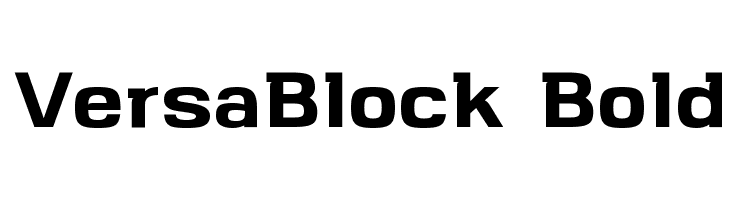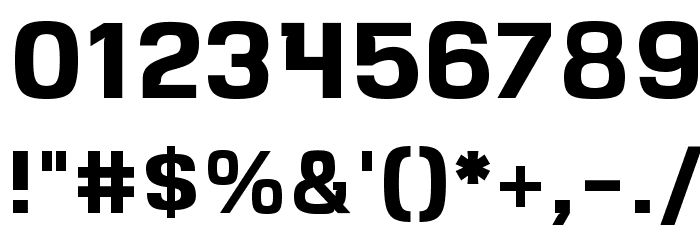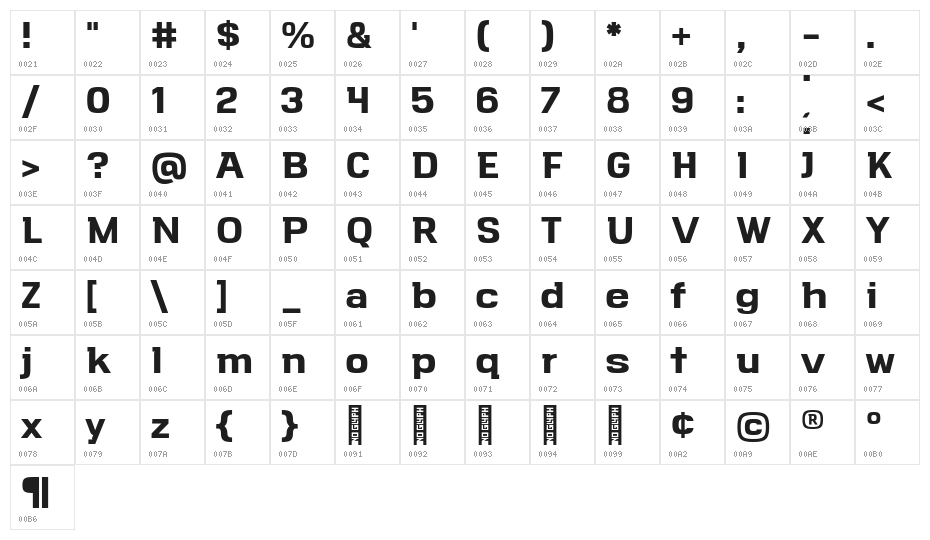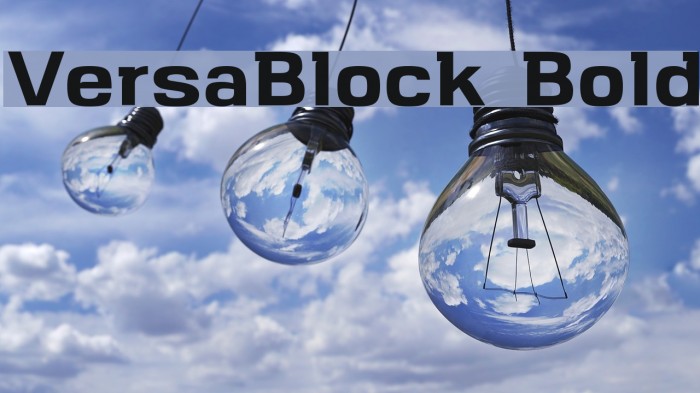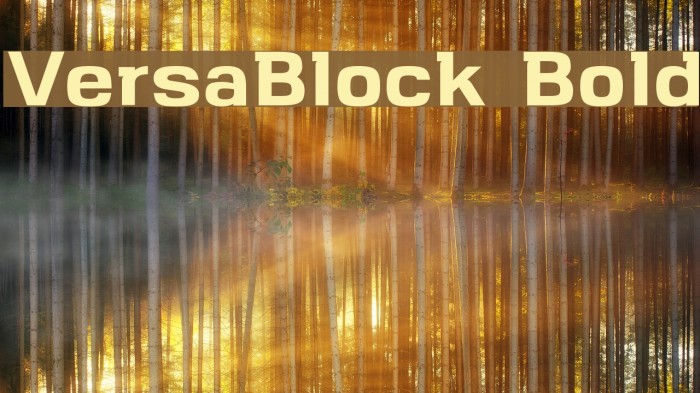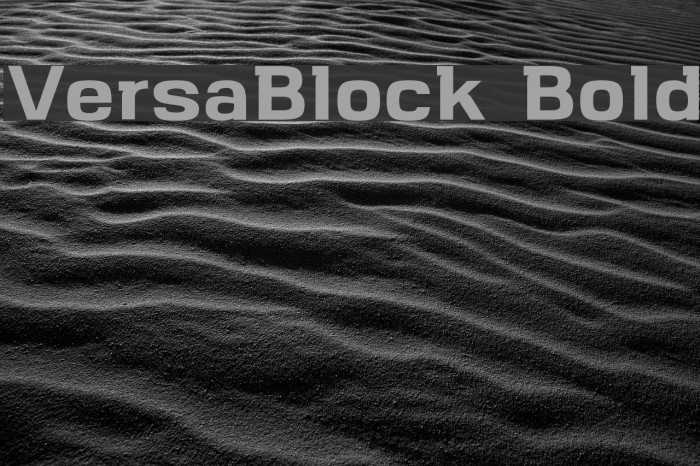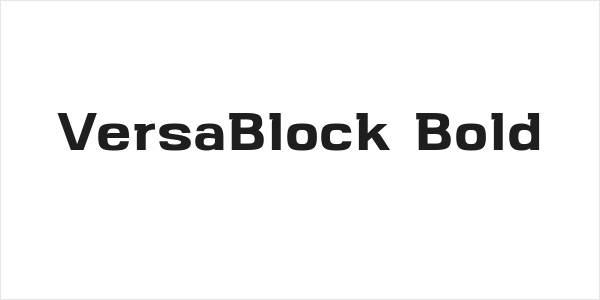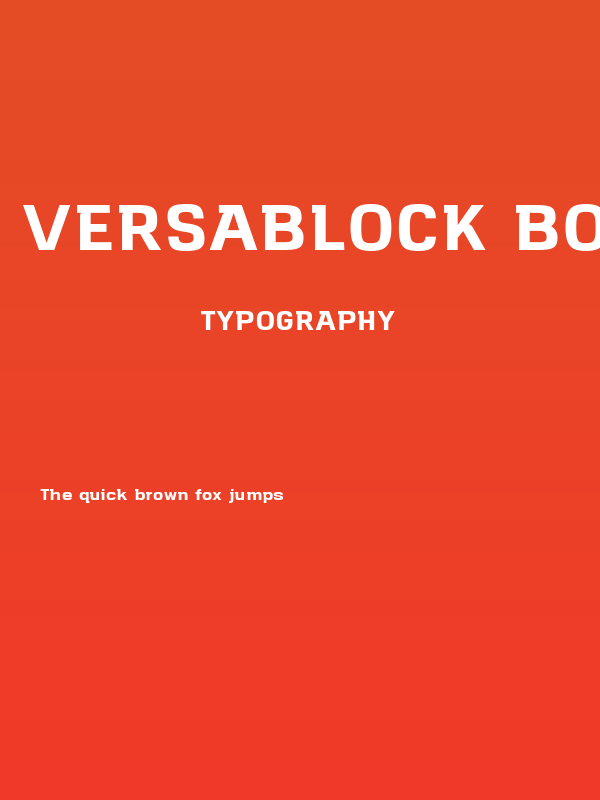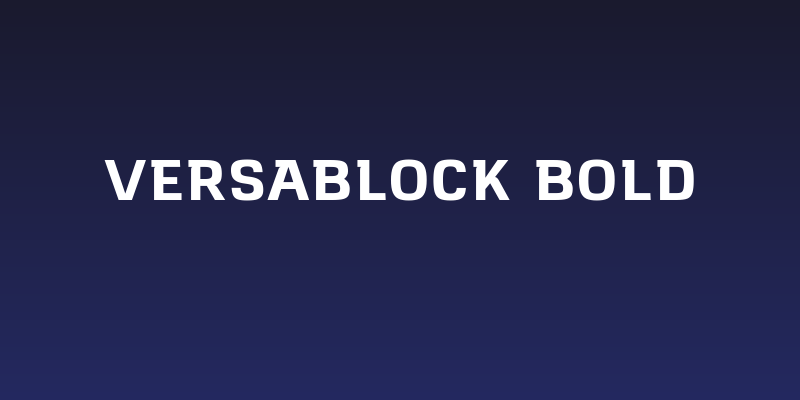
VersaBlock Bold Font
VersaBlock Bold Description
This font features a bold and robust design with a strong geometric structure. The characters are uniformly thick, giving it a powerful and impactful presence. The uppercase letters are particularly striking, with a blocky appearance that commands attention. The lowercase letters maintain the same boldness, ensuring consistency across text. Numbers are clear and easily readable, making them suitable for various applications. Special characters are well-defined, adding versatility to the font's use. Overall, this font exudes confidence and modernity, making it ideal for projects that require a bold statement.
| Proposed Projects | Ideal for branding, headlines, posters, and any design needing a bold, impactful typeface. |